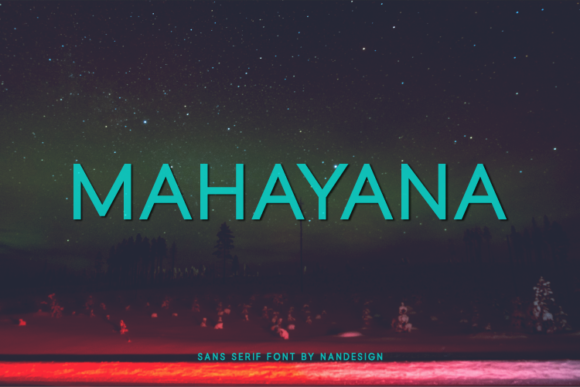
Journey into the Realm of Mahayana Font: Where Elegance Meets Functionality
In the vast digital landscape, fonts hold an extraordinary power to captivate and communicate. Among the myriad of options, the Mahayana Font stands as a beacon of creativity, beckoning you to unlock the true potential of your designs.
Mahayana's sans serif design exudes a timeless elegance that transcends trends. Its clean lines and open forms create a visual harmony that complements any layout. Whether you're crafting logos that demand attention or weaving words into enchanting invitations, Mahayana's versatility knows no bounds.
Let Mahayana's charm infuse life into your headings, transforming them into captivating focal points. Unleash your creativity on t-shirts, letterheads, and signage, imbuing them with a distinct personality that resonates with your audience.
Mahayana's versatility extends far beyond static designs. Its dynamic nature lends itself seamlessly to the fast-paced world of digital media. Craft engaging news articles, eye-catching posters, and memorable badges that leave a lasting impression.
With Mahayana as your font of choice, you'll discover a world of limitless possibilities. Its adaptability makes it a perfect fit for diverse projects, allowing you to effortlessly convey your message with clarity and impact.
Embrace Mahayana's allure and embark on a creative journey that knows no limits. Let your imagination soar as you create designs that capture hearts and minds.